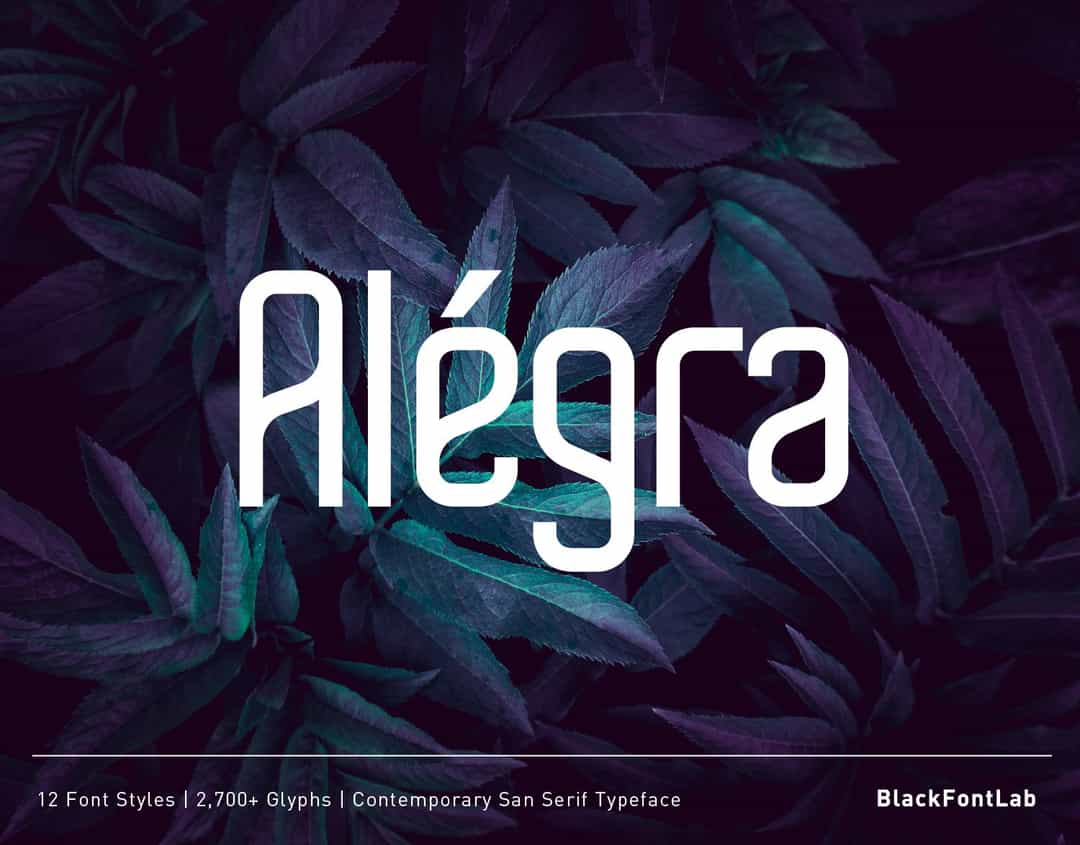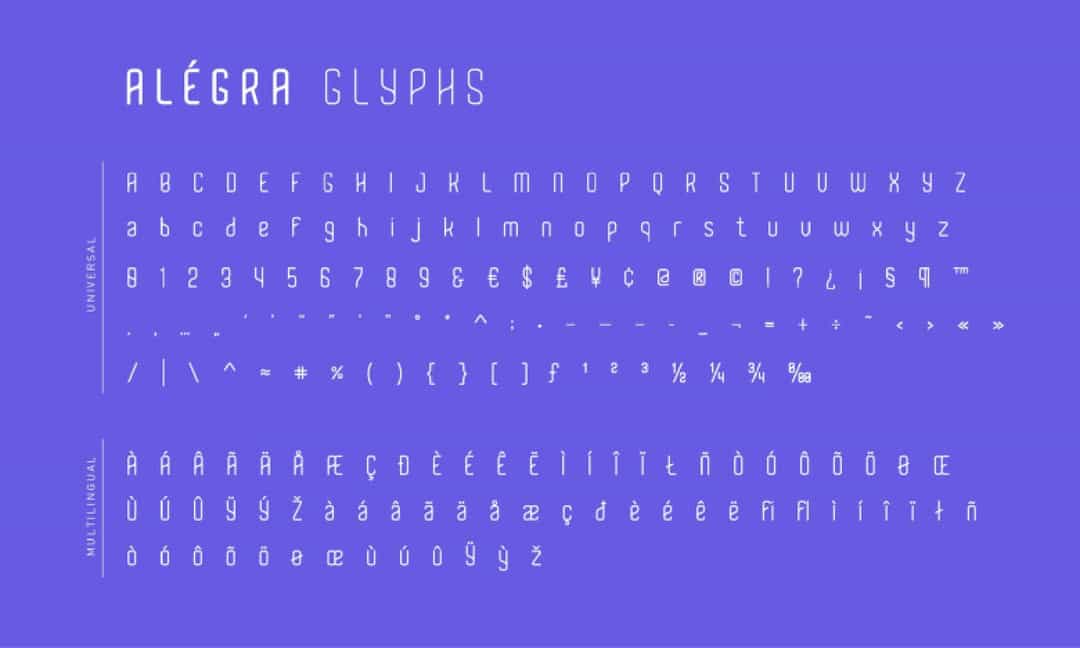
Alegra is a san serif font, minimal, a little curved for natural and future styles, perfect for exhibitions, presentations and other beauty related projects. This is because the font’s design gives a royal and professional look; we have developed 12 styles of Alegra font which include hairline regular, light, medium, bold, solar bold, bold solar and all the italic types.